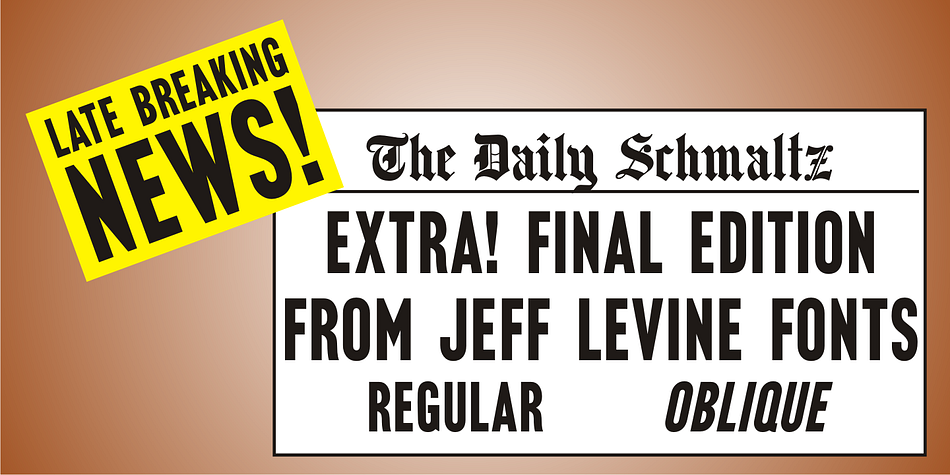
Final Edition JNL is a display sans font family. This typeface has two styles and was published by Jeff Levine Fonts.
A classic sans grotesk wood type design, Final Edition JNL was modeled from actual headlines found in online examples of an old daily newspaper.